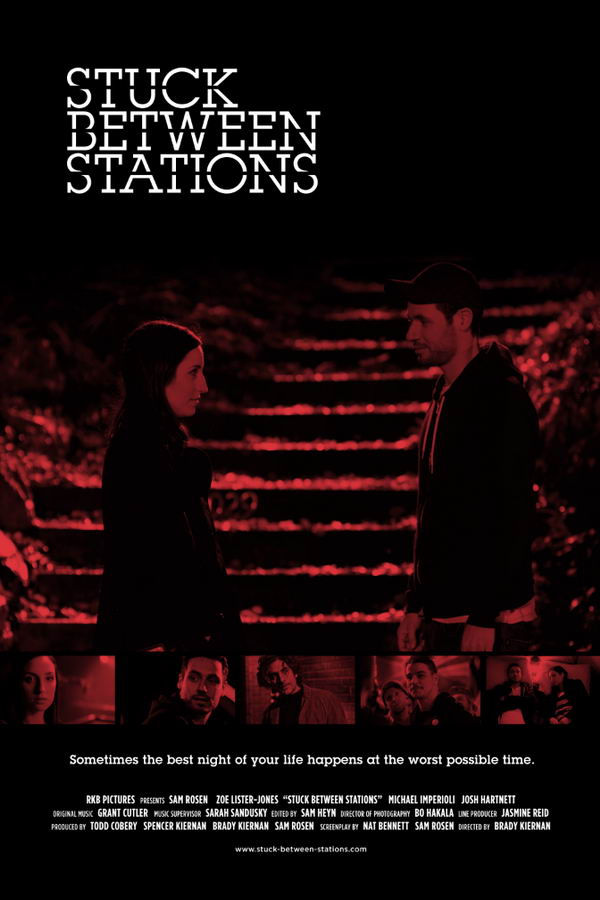
Stuck Between Stations Font
AdventureStuck Between Stations is a 2011 romantic drama film about a chance encounter between a soldier and a former classmate that leads to a night of adventure and self-discovery in Minneapolis. The film stars Sam Rosen and Zoe Lister-Jones.
The movie title on the poster was likely designed using ITC Lubalin Graph Book, a typeface by Herb Lubalin for ITC based on Avant Garde Gothic. Learn more about ITC Herb Lubalin typeface here.